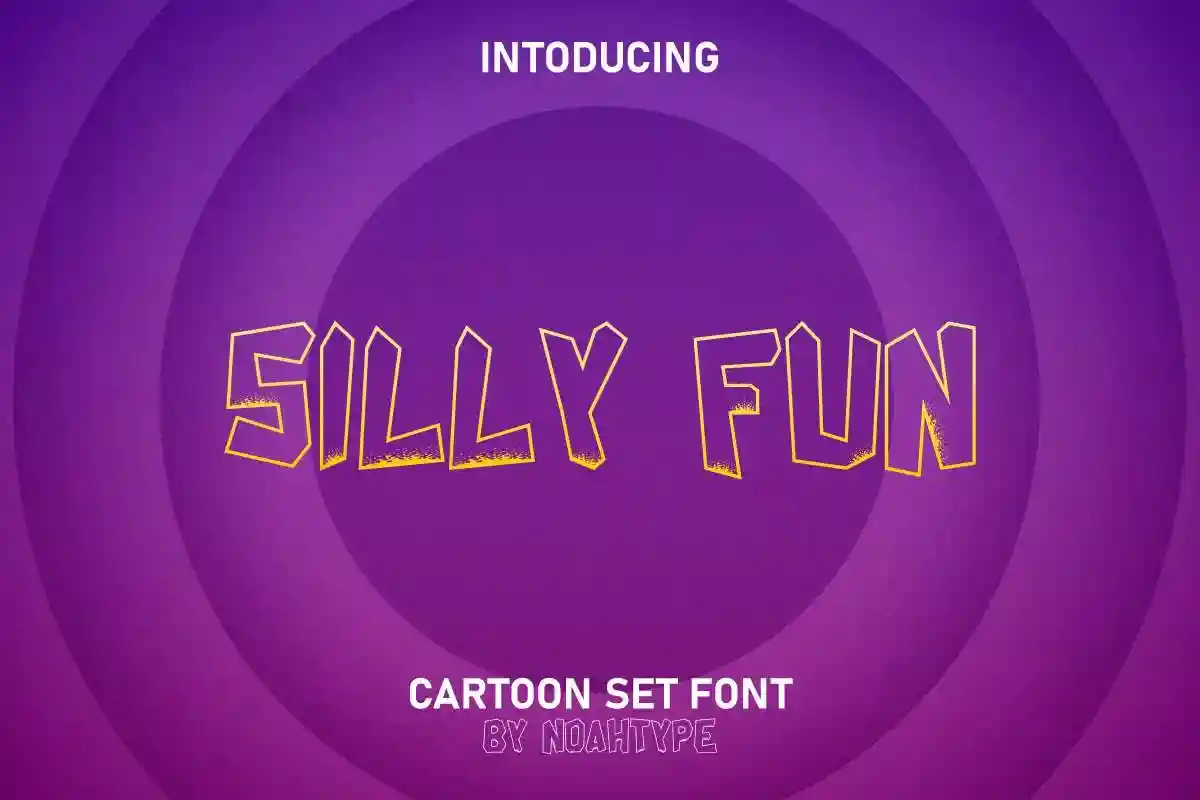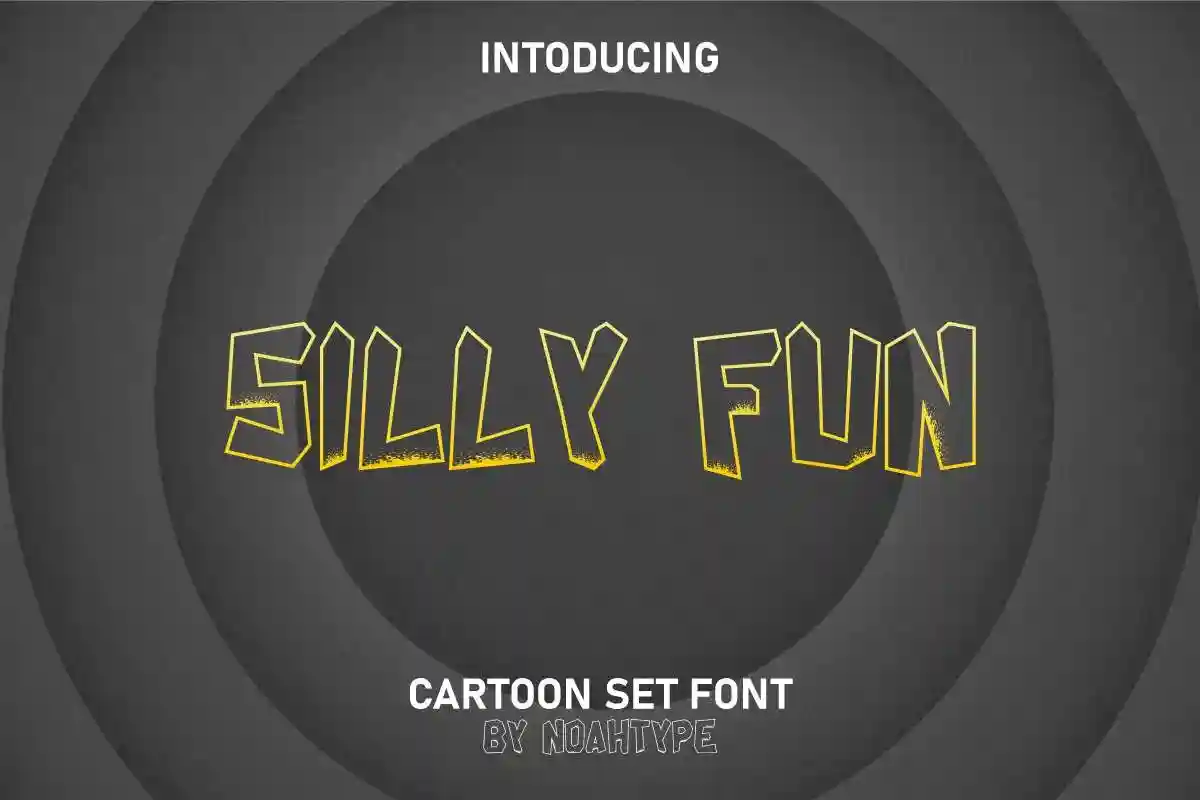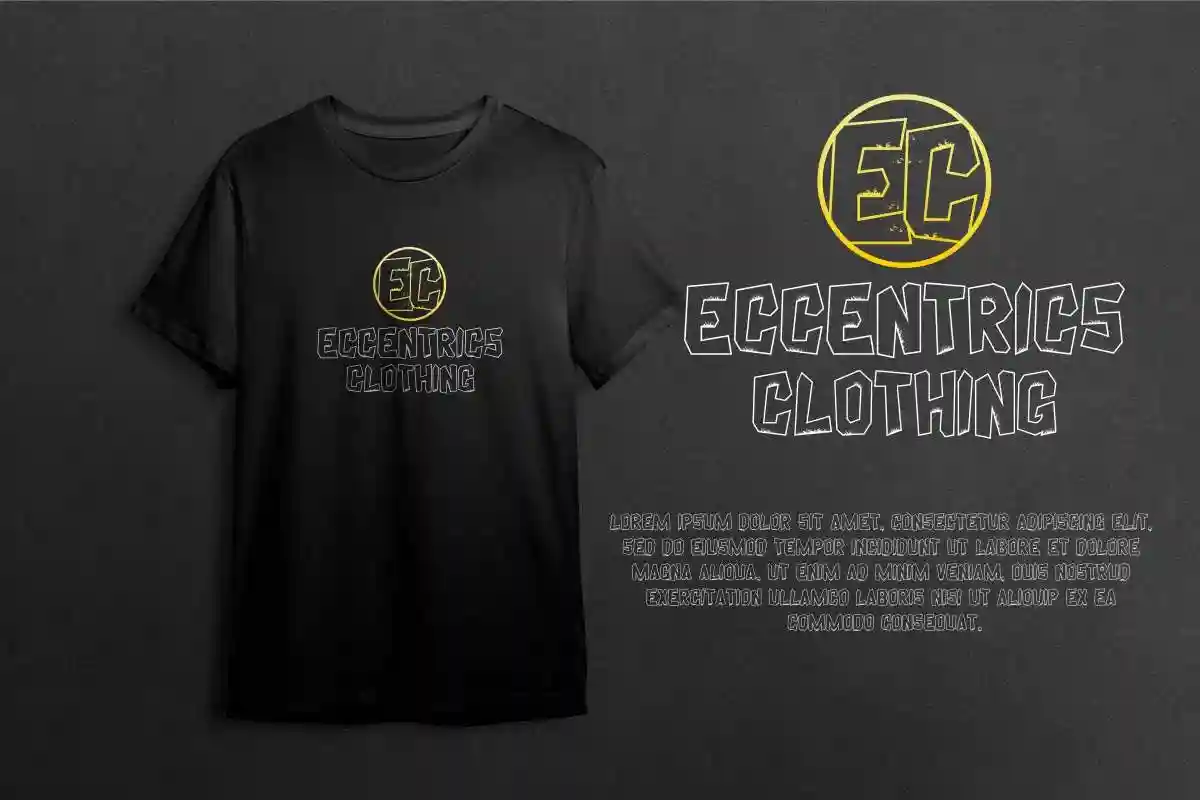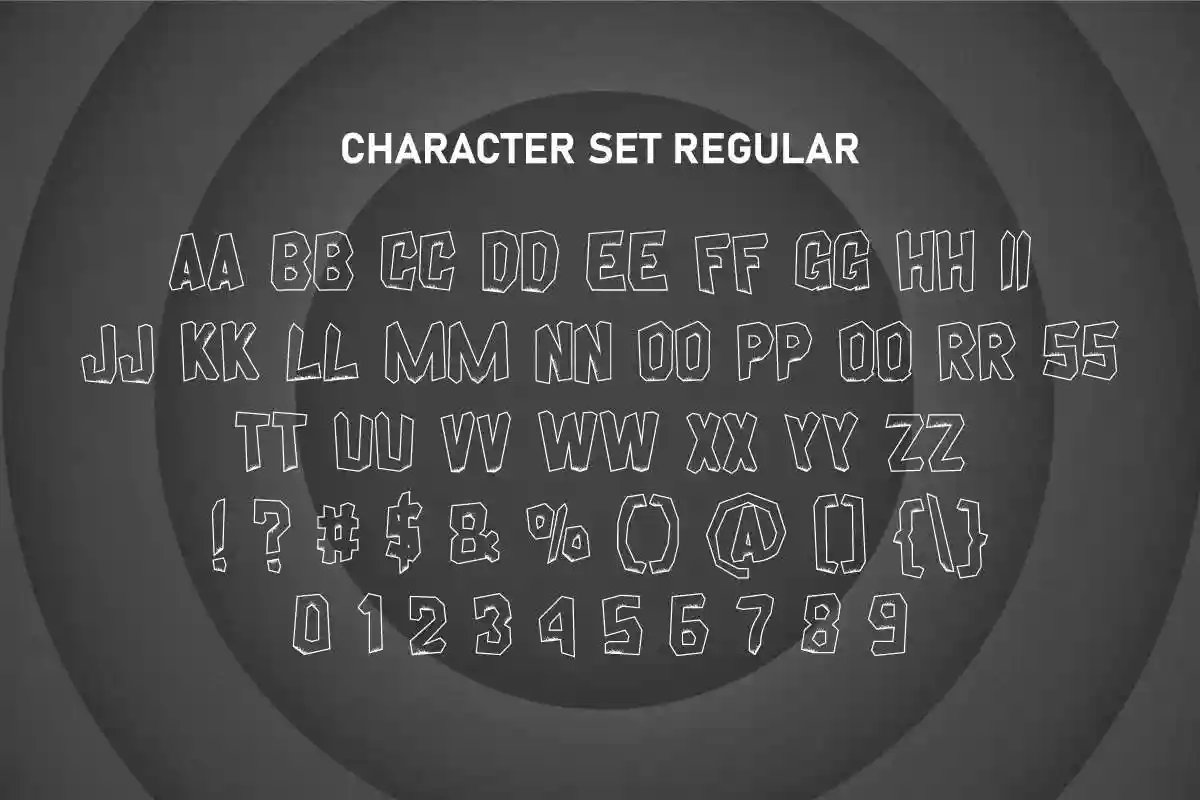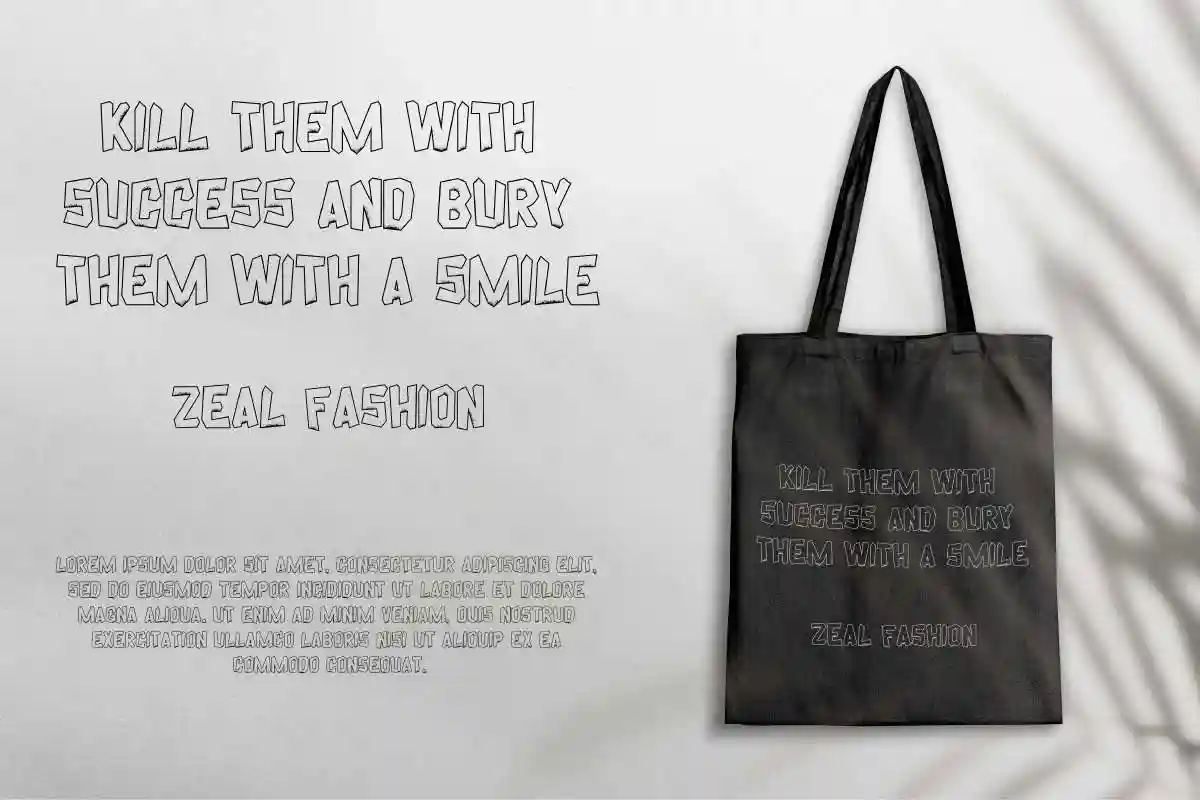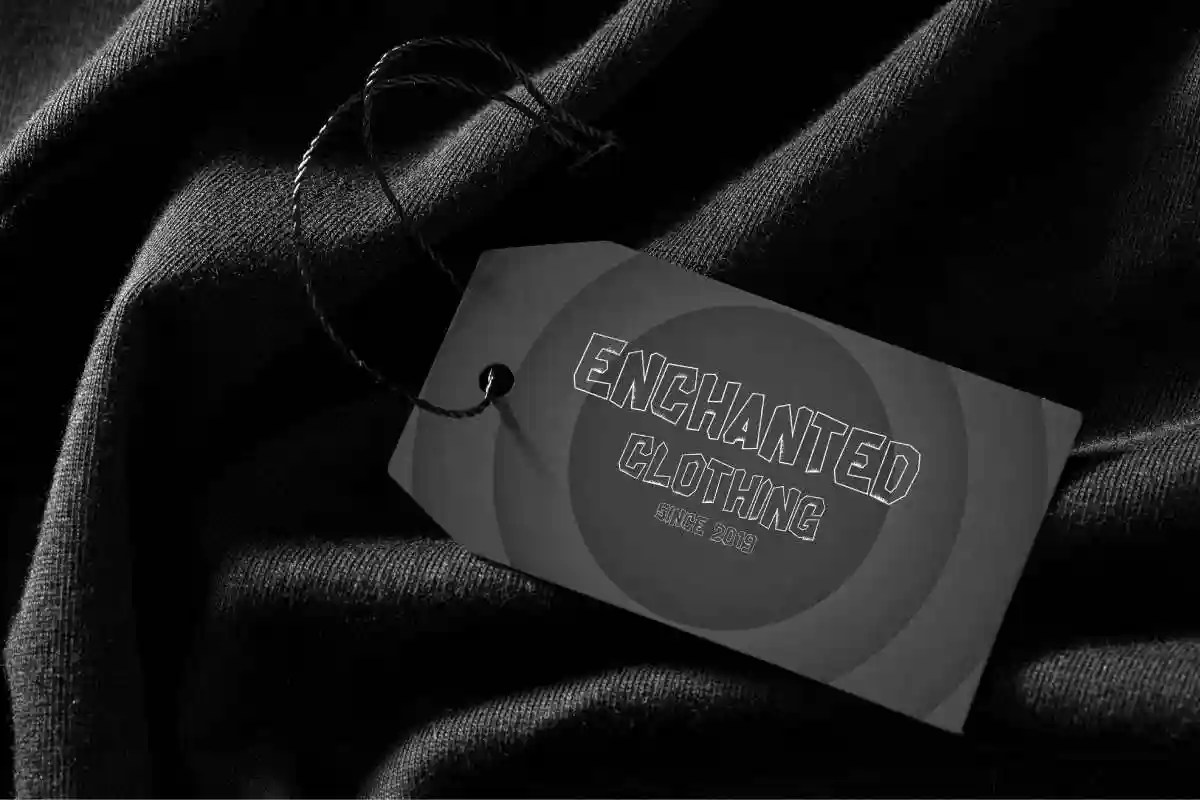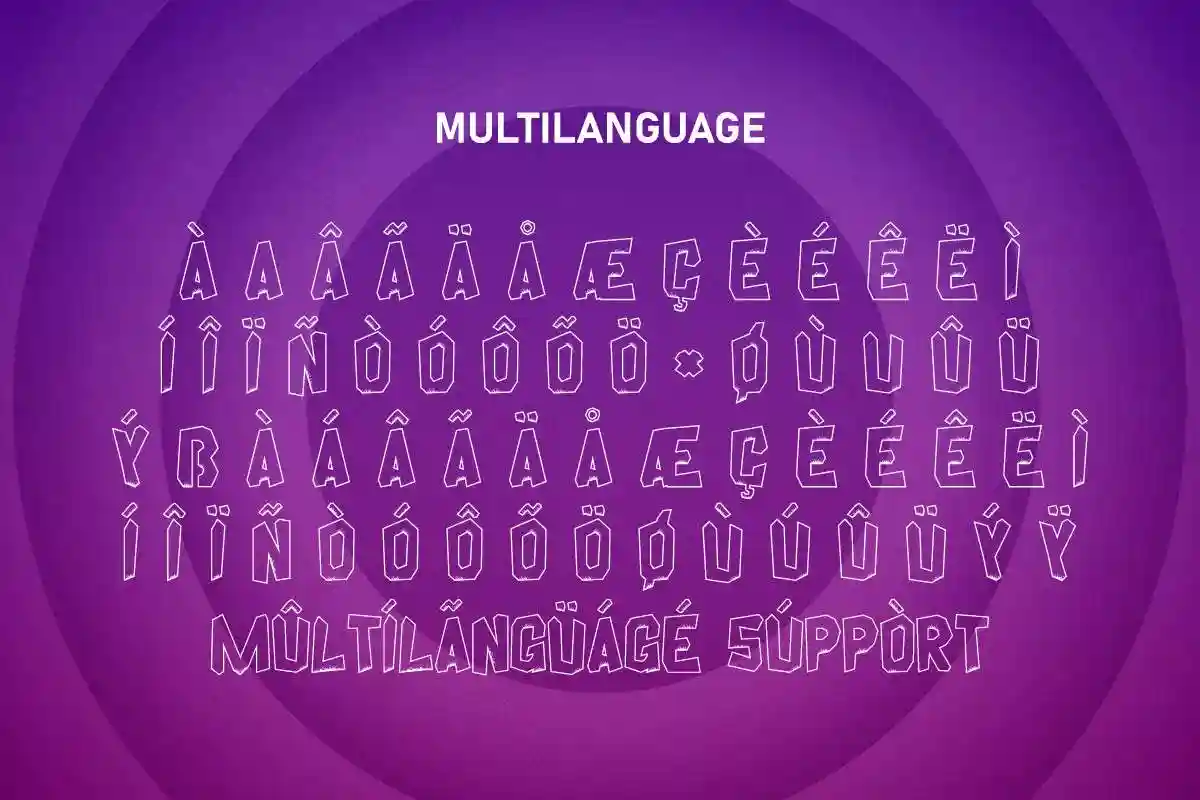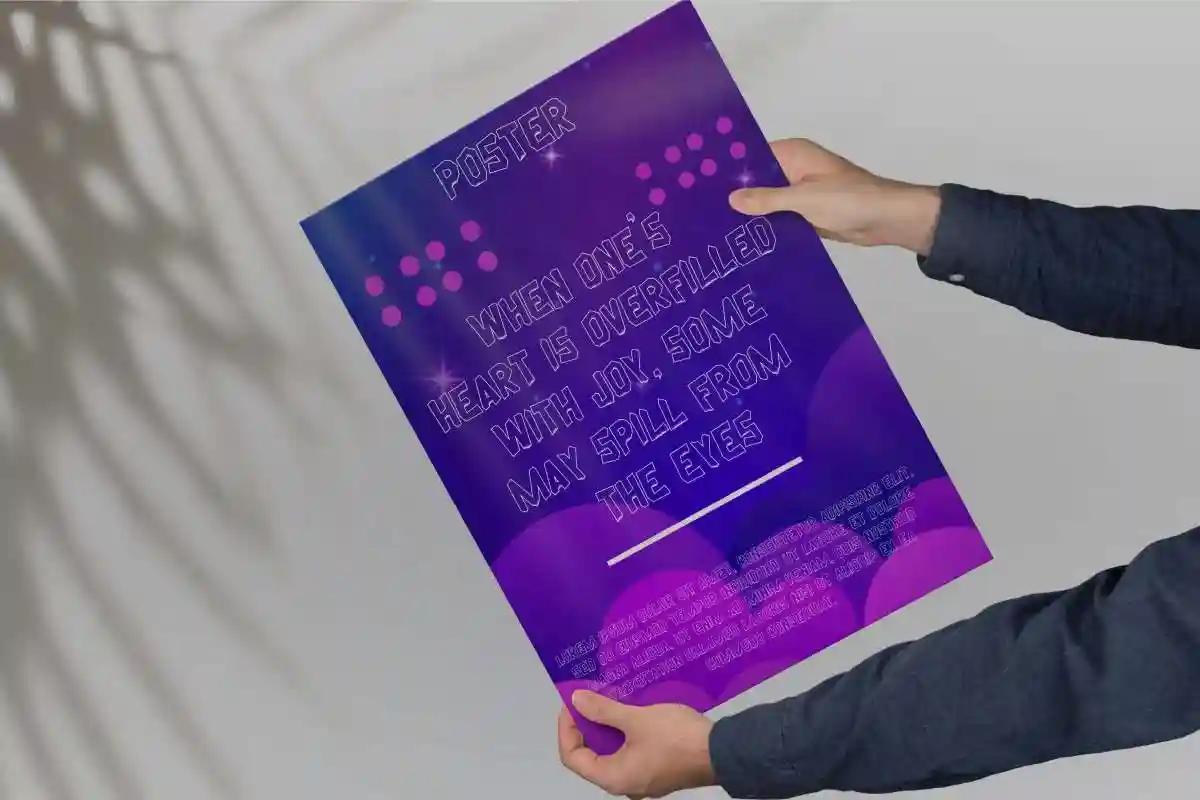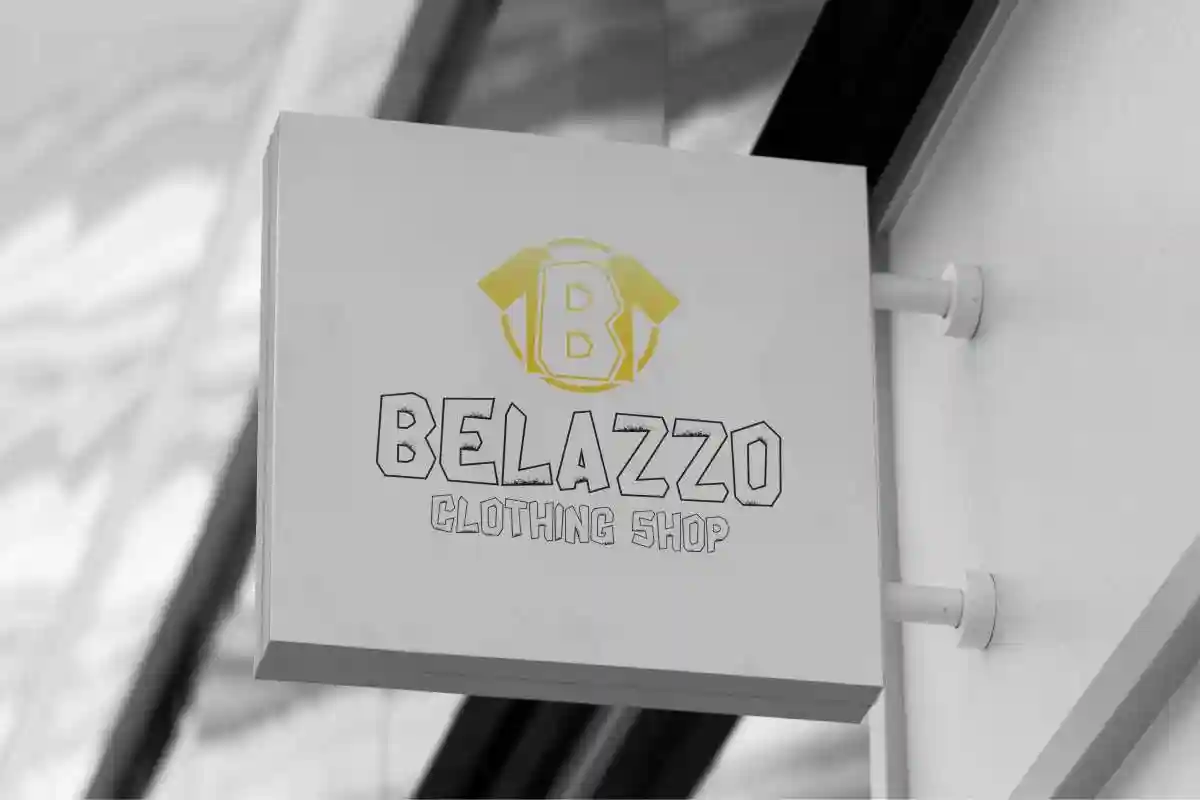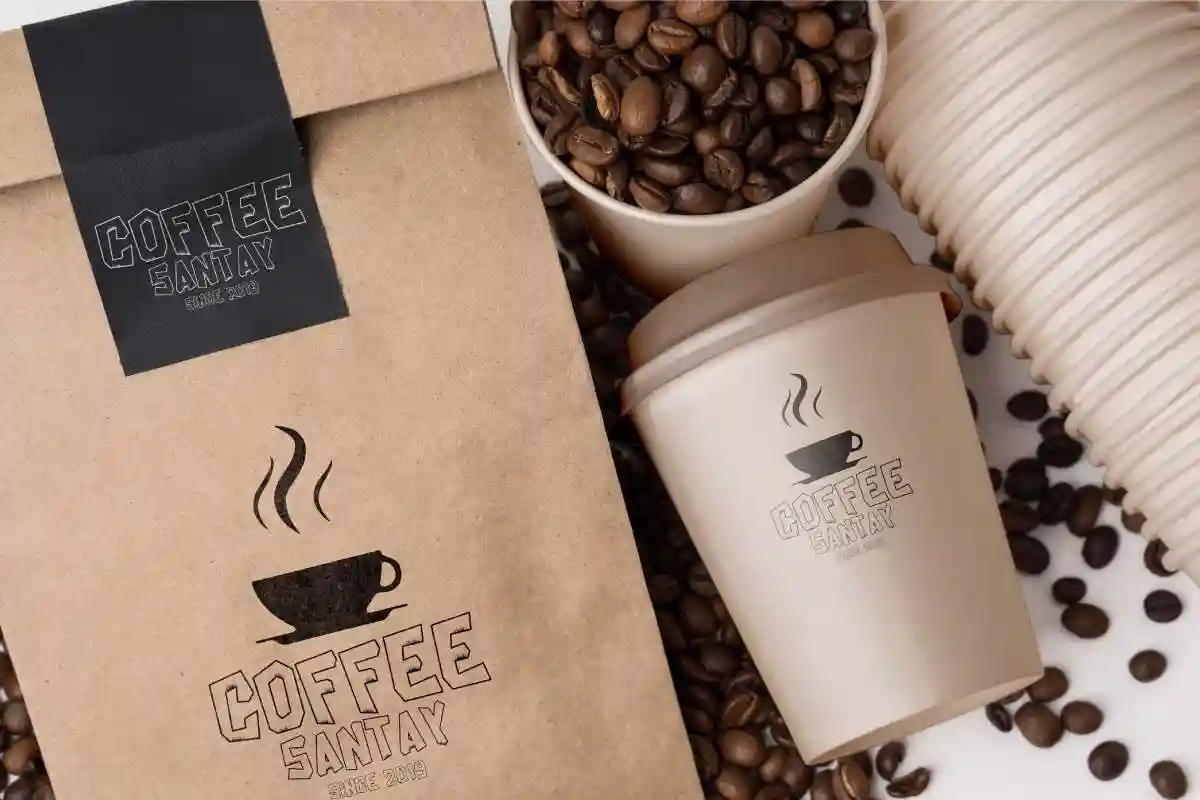
Silly Fun Font is cute playful cartoon display font with unique style inspired stone age on its letters. This font has a distinctive style with splashes of paint on each letter while easily to read. It will be perfect for industry such as cartoon, comic, fashion, food or beverage brands, game, movie, and more.
Silly Fun Font includes full set of ALL CAPS Basic Characters for uppercase and lowercase, Numerals and Punctuation. You can use this font for many projects: branding, brochure, clipping event promotion, company sign, custom tote bag, flyer, headline, label, lettering, logo, poster, product packaging design, quote, signage, t-shirt printing design, and many more. This font is perfect for projects that require a lot of creativity, but still look simple and unique. After purchase you’ll get what’s included on the package:
Step into a world of creativity and playfulness with Silly Fun Cartoon Set Font – the ultimate typeface for anyone who loves bold, colorful, and cheerful designs.
Silly Fun Font supports multilingual languages (including multiple currency symbols). With a simple installation, it will be ready to use both on Windows machine or Mac. It really common in almost any software (Character Map for Windows and Font Book for Mac). It work well on Adobe software such as Illustrator, Photoshop and several other software.